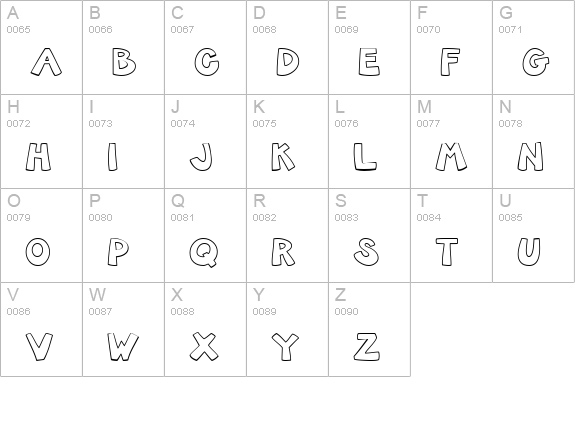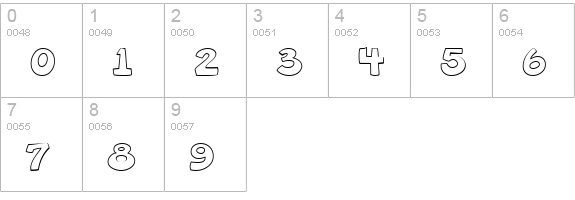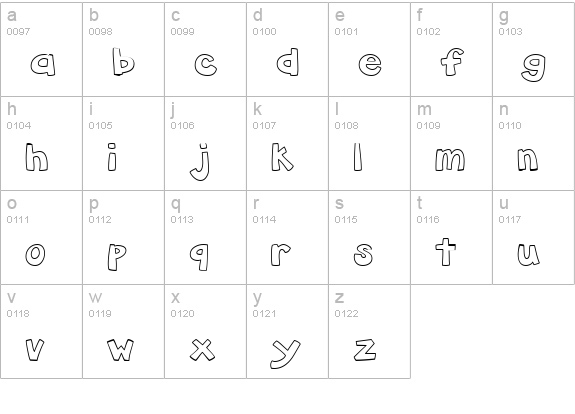
CK Chunky Font Details
Introducing CK Chunky font, a versatile and bold typeface that is sure to make a statement in any design project. This eye-catching font features chunky letterforms with a modern twist, perfect for adding a touch of personality and emphasis to your work. CK Chunky font is ideal for headlines, logos, posters, and any other creative project that requires a bold and impactful look. Its unique design will help your text stand out and grab the attention of your audience. Best of all, CK Chunky font is available for free download at FontsMarket.com. So, why wait? Add this stylish and dynamic font to your collection today and take your designs to the next level!